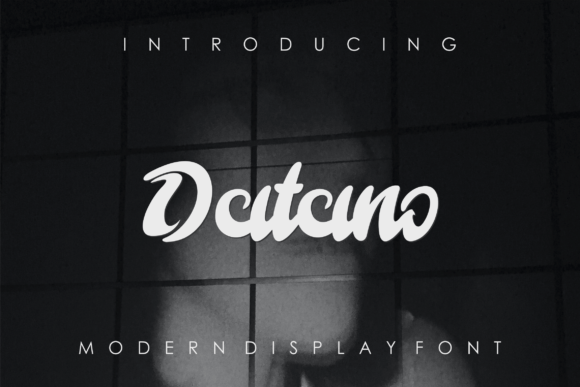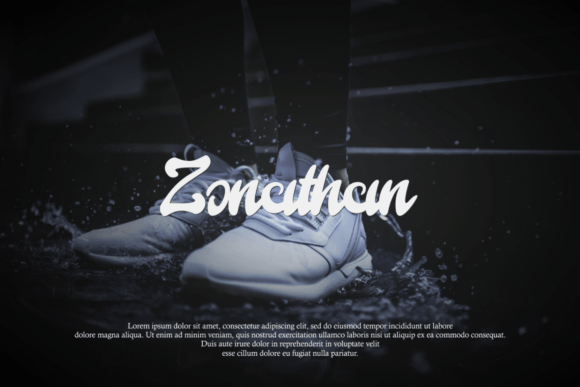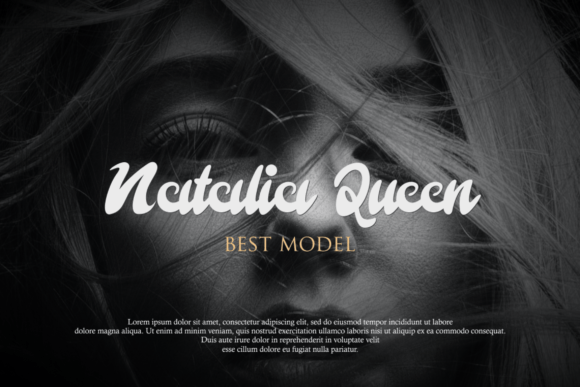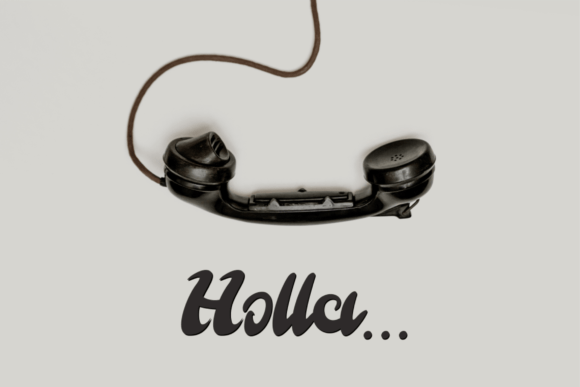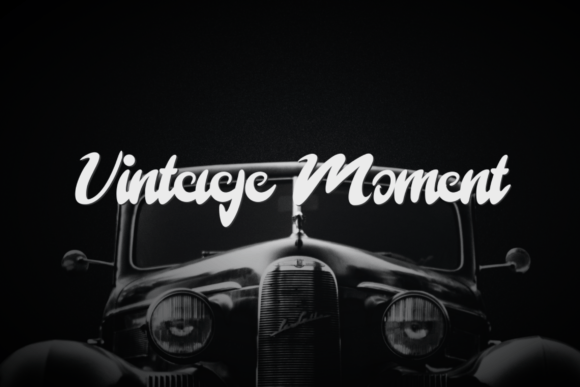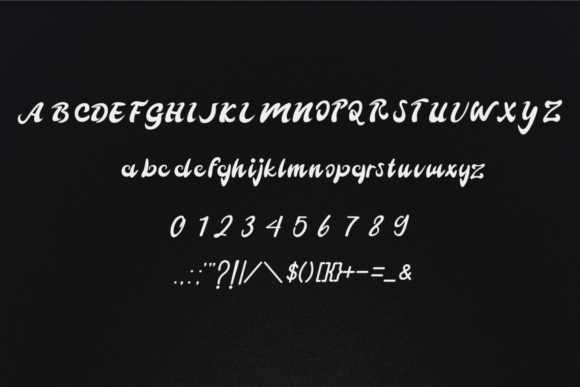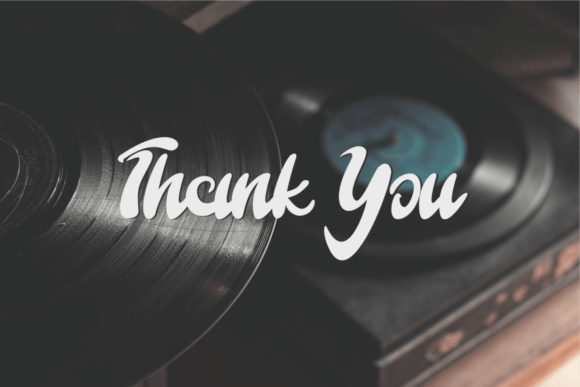
Datano Font
About Datano Font
Introducing Datano, a dynamic and versatile duo font featuring both a modern, bold display font and an authentic handwritten style. Designed to be bold and authentic, Datano is a perfect fit for a wide range of applications, including branding, logos, T-shirt printing, esports, and beyond. Add Datano to your creative arsenal, and experience how it breathes life into your favorite ideas with its contemporary flair.
Datano’s standout feature is its dual nature, offering both a modern, bold display font and an authentic handwritten companion. This combination provides a unique flexibility, allowing you to use the bold font for striking headlines and the handwritten style for a more personalized touch in your designs.
The modern, bold display font in Datano is ideal for creating a strong visual impact. Whether you’re designing logos, branding materials, or esports graphics, this font is crafted to make a statement. It adds a touch of boldness and modernity to your creative projects, ensuring that they stand out with confidence.
On the other hand, the authentic handwritten style in Datano introduces a personal and genuine touch to your designs. This is perfect for T-shirt printing, adding an individualized and dynamic element to your apparel designs. The handwritten font offers a sense of authenticity, connecting with your audience on a more personal level.
Imagine Datano making a bold impression on your branding materials, where the display font becomes the focal point of your visual identity. Envision it on T-shirts, where the handwritten style adds a touch of uniqueness to your apparel designs.
In conclusion, Datano is not just a font; it’s a duo font that brings both boldness and authenticity to your creative projects. Download it today and discover how it transforms your branding, logos, T-shirt prints, and more, making your favorite ideas come alive with a modern and genuine touch!